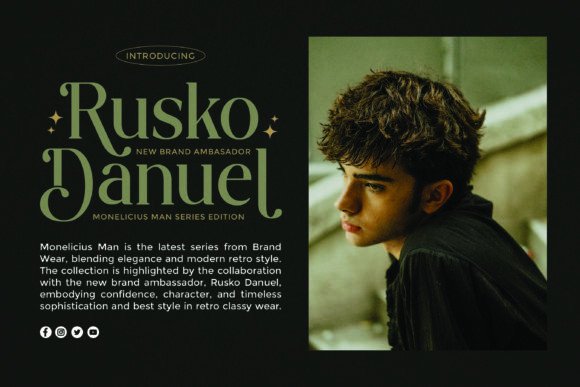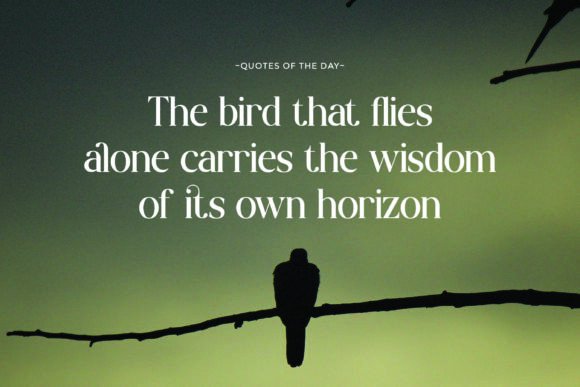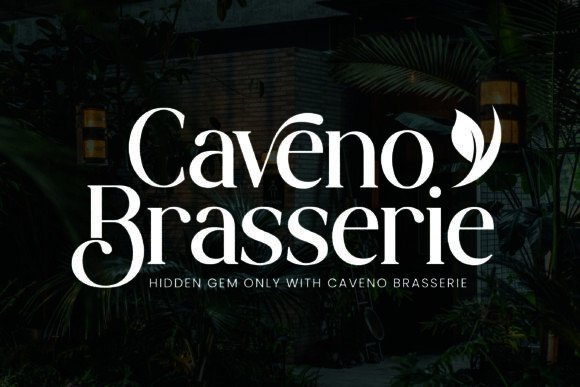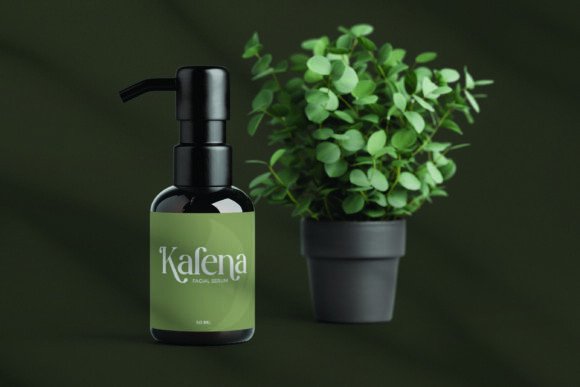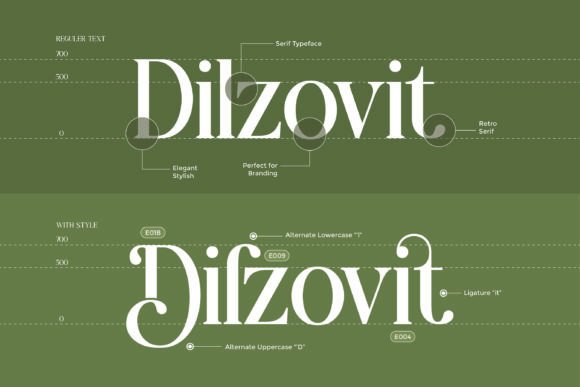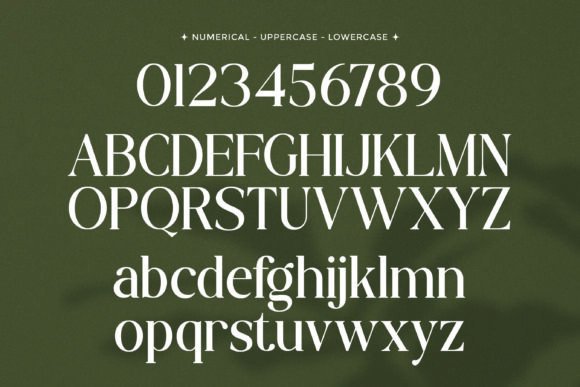
Brogade Font: Elevate Your Design with a Stylish Retro Serif Typeface
In the world of typography, fonts play a crucial role in conveying the tone and personality of a brand. For designers and crafters looking to add a touch of nostalgia and sophistication to their work, Brogade Font is an excellent choice. This stylish retro serif typeface seamlessly blends vintage charm with modern elegance, making it perfect for a wide range of design projects.
The Unique Characteristics of Brogade Font
Brogade Font is distinguished by its smooth curves, playful details, and star-inspired accents. These features come together to create a distinctive look that feels both elegant and full of character. The font’s retro vibe is reminiscent of classic serif typefaces, while its modern twists make it suitable for contemporary design applications.
Crafted for Versatility and Impact
Whether you’re working on branding, packaging, headlines, or editorial layouts, Brogade Font is designed to elevate your design. Its warm, expressive personality shines through in every character, making it an excellent choice for designers looking to add a human touch to their work. With Brogade, you can create visually stunning designs that capture the attention of your audience and leave a lasting impression.
Key Features of Brogade Font
- Retro Serif Style: Brogade’s classic serif design pays homage to traditional typography while incorporating modern elements for a fresh look.
- Smooth Curves and Playful Details: The font’s smooth curves and playful details add a touch of whimsy and sophistication to any design.
- Star-Inspired Accents: Unique star-inspired accents give Brogade a distinctive edge, setting it apart from other serif typefaces.
- Elegant and Expressive: Brogade’s elegant design makes it suitable for high-end branding and editorial projects, while its expressive personality adds a creative touch to packaging and headlines.
Applications of Brogade Font
Brogade Font is incredibly versatile and can be used in a variety of design projects, including:
- Branding: Establish a strong brand identity with Brogade’s unique and memorable design.
- Packaging: Add a touch of elegance and sophistication to your product packaging with Brogade.
- Headlines: Create eye-catching headlines that capture the attention of your audience with Brogade’s bold and expressive design.
- Editorial Layouts: Elevate your editorial designs with Brogade’s classic serif style and modern twists.
Why Choose Brogade Font?
With so many fonts available, why choose Brogade? Here are a few compelling reasons:
- Unique Design: Brogade’s distinctive design sets it apart from other serif typefaces, making it an excellent choice for designers looking to create something truly unique.
- Versatility: Brogade is incredibly versatile and can be used in a wide range of design projects.
- Elegance and Sophistication: Brogade’s elegant design and sophisticated details make it perfect for high-end branding and editorial projects.
Brogade Font is a stylish retro serif typeface that offers a perfect blend of nostalgic charm and modern sophistication. Its unique characteristics, versatility, and elegant design make it an excellent choice for designers and crafters looking to elevate their work. Whether you’re working on branding, packaging, headlines, or editorial layouts, Brogade is sure to bring a warm, expressive personality to your design projects.